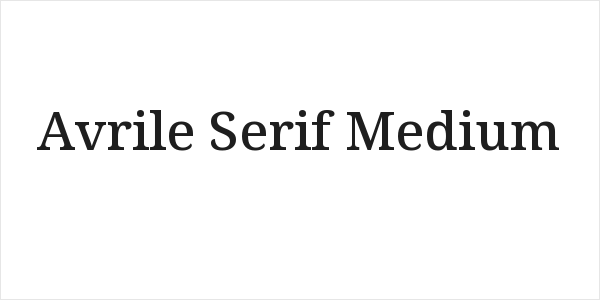
Avrile Serif Medium Font
Avrile Serif Medium Description
This font features a classic serif design with medium weight, offering a balanced and readable appearance. The serifs are pronounced yet not overly ornate, providing a traditional feel that is both elegant and functional. The uppercase letters are bold and commanding, while the lowercase letters maintain a consistent style that complements the overall design. Numbers are clear and easily distinguishable, making them suitable for a variety of uses. The special characters are well-integrated, ensuring versatility in different contexts. The font's medium contrast in stroke thickness adds to its legibility, making it a great choice for both print and digital media.
| Proposed Projects | Ideal for editorial design, book covers, formal invitations, and branding projects. |